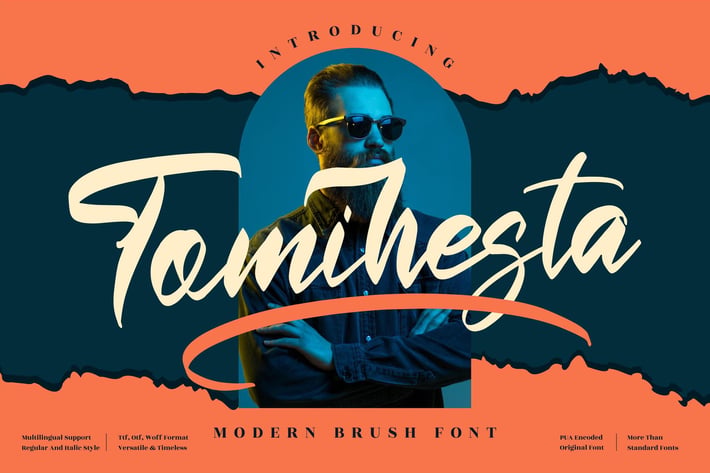
Tomihesta Brush Script Font
Tomihesta Brush Script Font is a bold and expressive brush-style typeface crafted to bring energetic personality into your digital and printed creative projects. Its hand-painted strokes make it perfect for standout visuals, giving your designs a fresh, modern, and artistic feel.
Regular & italic styles
Versatile & timeless brush look
Posters
Social media graphics
Branding
Personal projects
Creative display designs
A dynamic modern brush font that adds bold character and effortless style to any design.